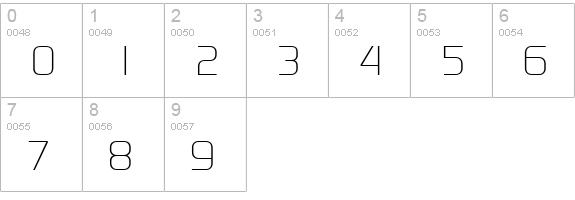
Bazouk Light SSi Light Font Details
Bazouk Light SSi Light is a refined, elegant variant in the Bazouk typeface family \xE2\x80\x94 well suited to elegant body text, refined sub-headings, and luxury branding.
Bazouk Light SSi Light font is a sleek and modern typeface that exudes elegance and sophistication. Its clean lines and gentle curves make it perfect for a wide range of design projects, from branding to editorial layouts. The light weight of this font adds a touch of delicacy and refinement to any text, making it ideal for conveying a sense of grace and style. The best part is that Bazouk Light SSi Light font is available for free download at FontsMarket.com. This means that you can easily access this beautiful typeface and use it in your projects without any cost. Whether you're a designer looking for a new font to add to your collection or a business owner in need of a fresh look for your branding, Bazouk Light SSi Light font is a fantastic choice that won't break the bank. Don't miss out on the opportunity to enhance your designs with this stunning font - download Bazouk Light SSi Light today from FontsMarket.com and elevate your projects to the next level.